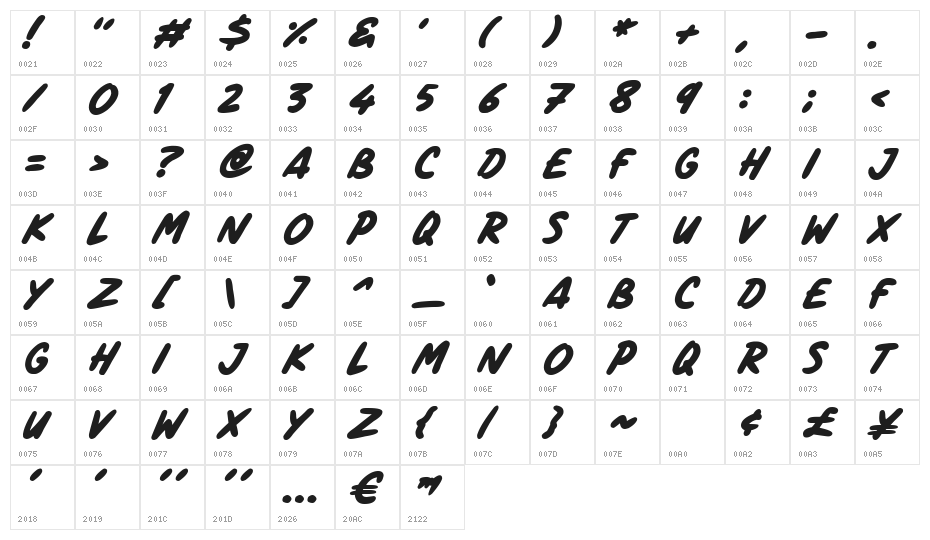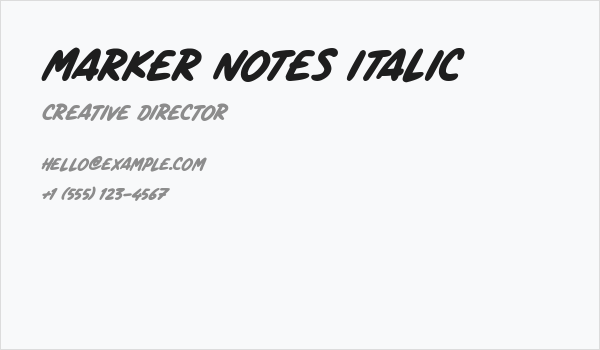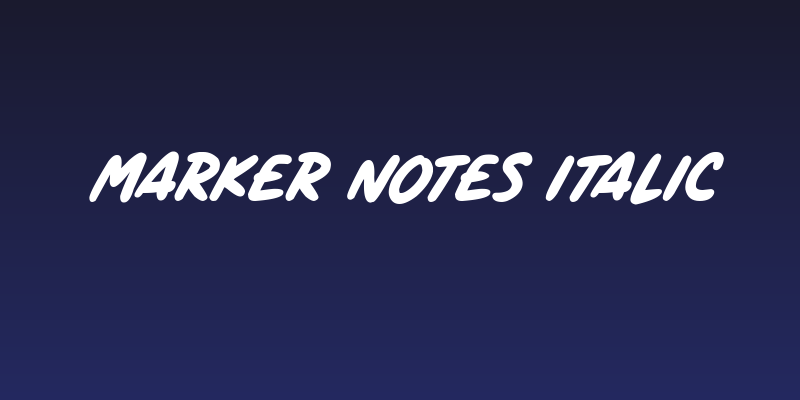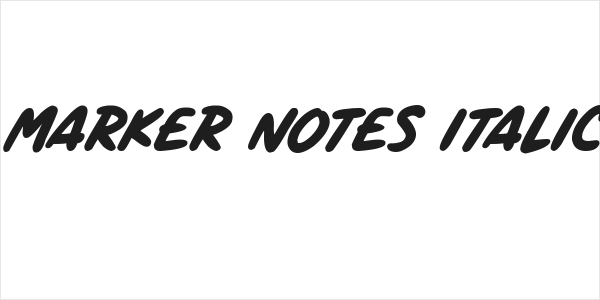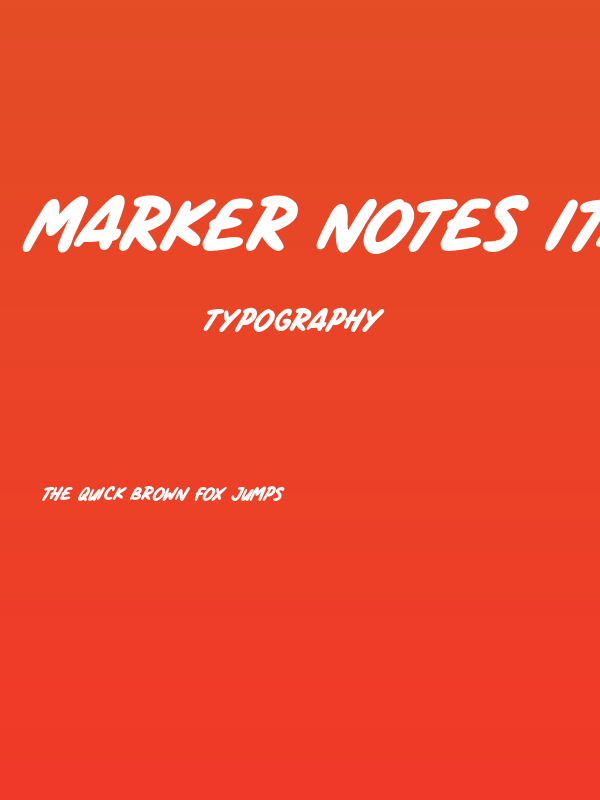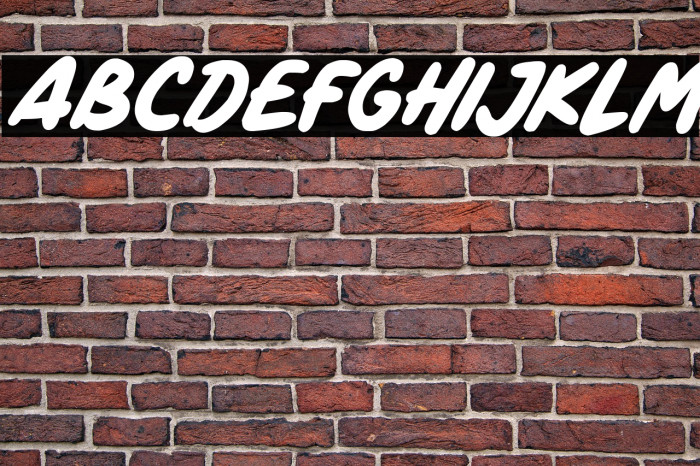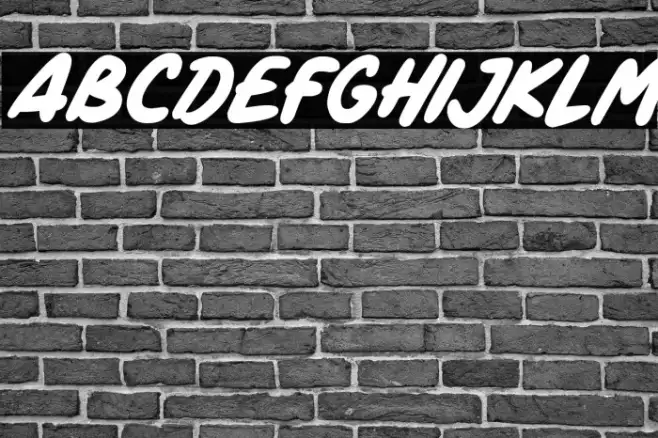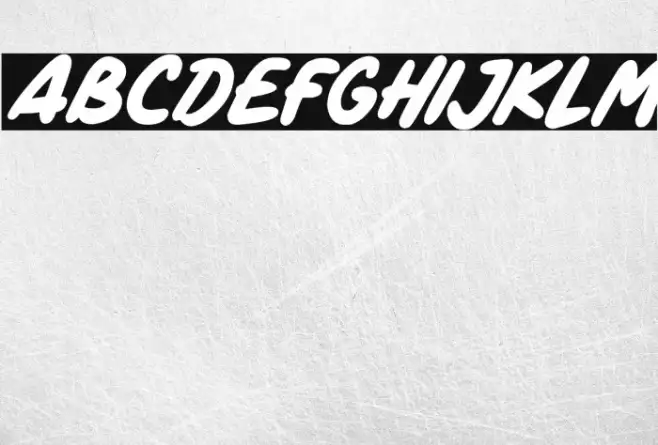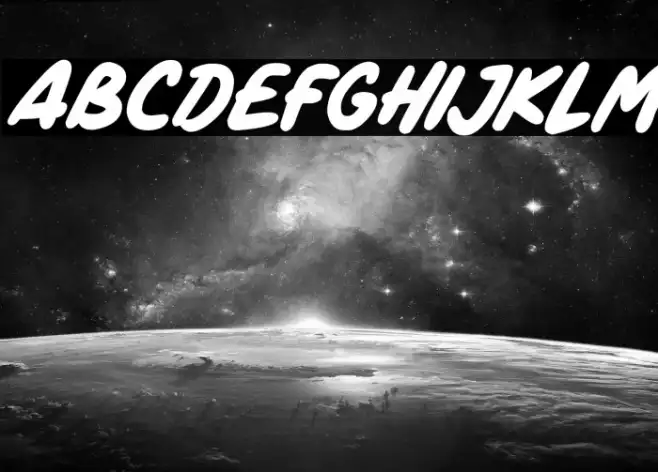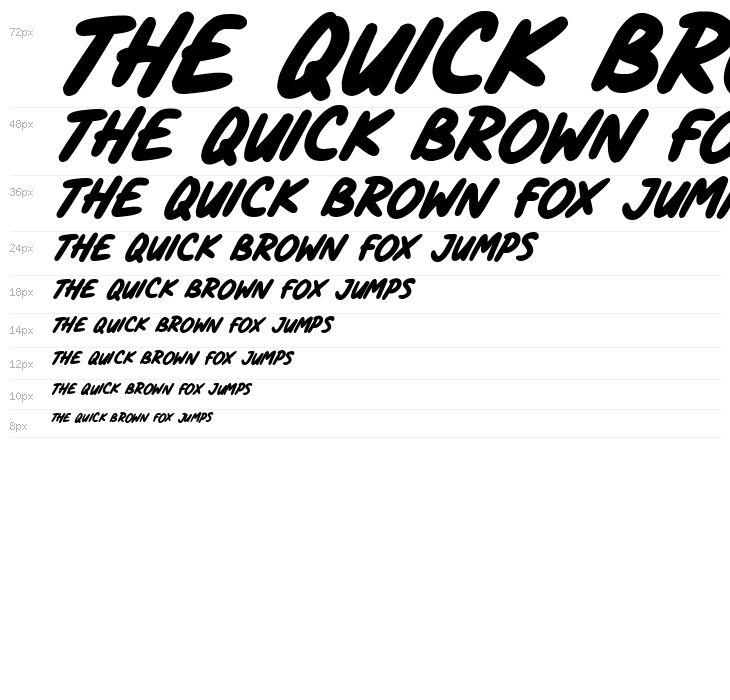
Marker Notes Italic Font
Marker Notes Italic Description
This font exudes a dynamic and energetic feel, characterized by its bold, italicized strokes that mimic the fluidity of handwritten notes. The letters are slightly slanted, enhancing the sense of motion and spontaneity. Each character is crafted with a consistent thickness, providing a uniform appearance across the alphabet. The rounded edges and smooth curves contribute to a friendly and approachable aesthetic. The numbers and special characters maintain the same lively style, ensuring cohesion throughout. This font is perfect for projects that require a personal touch or a sense of informality.